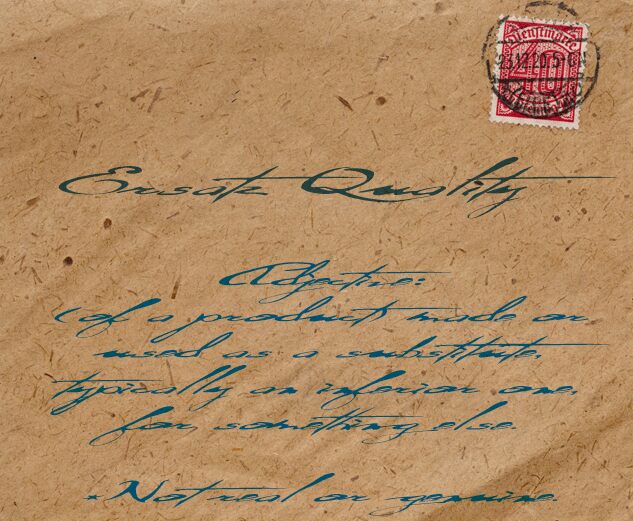
Ersatz Quality by David Kerkhoff is a free script with a restless, signature-like sweep. Its broad curves snap into thin, extended strokes, and several forms spill into dramatic horizontal flourishes. The motion feels deliberately unruly.
Fashion branding and music posters both suit this lettering, since its rapid gestures can suggest either couture confidence or raw stage energy. Invitations and editorial covers offer another home for its ornamental side, with the long strokes becoming part of borders, underlines, or surrounding artwork.